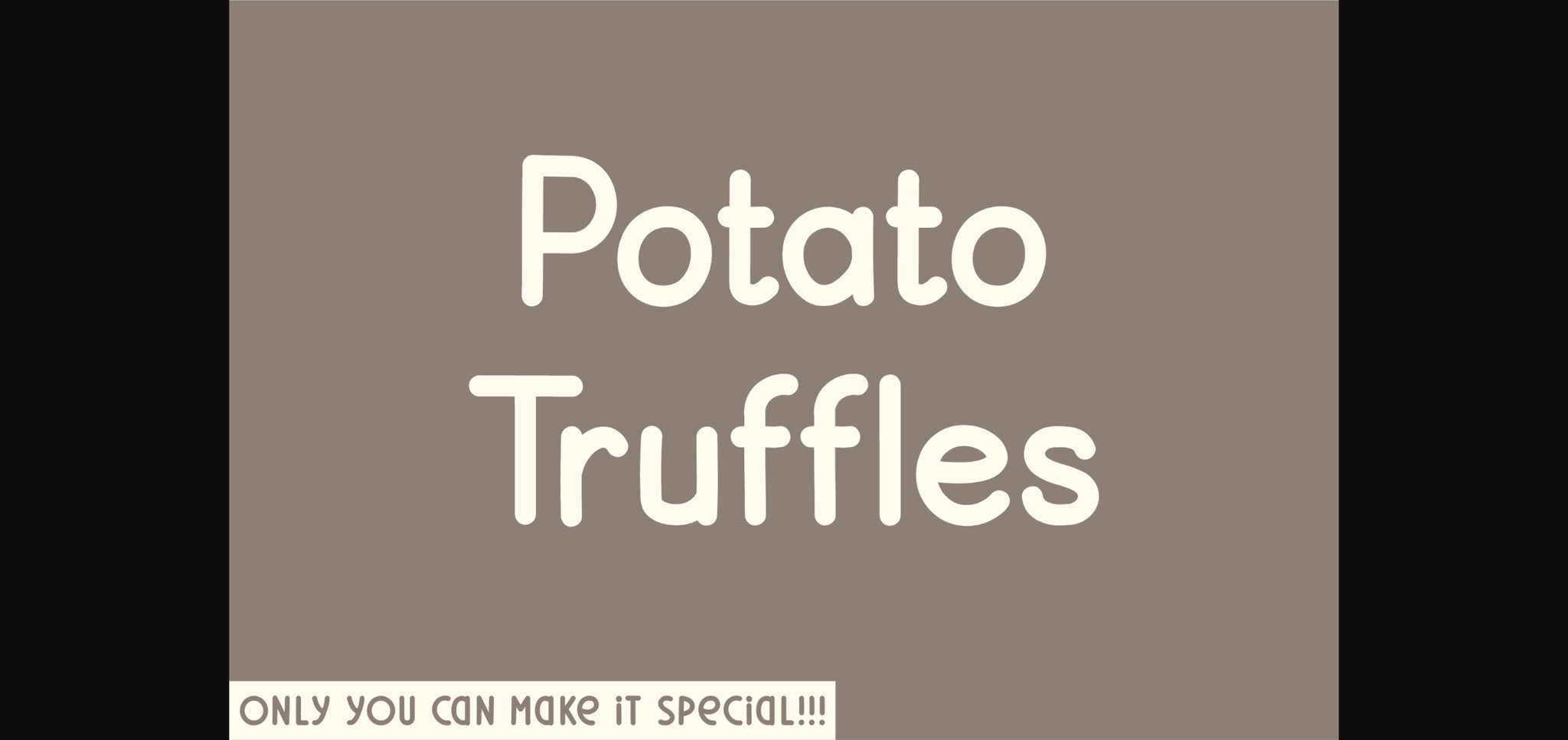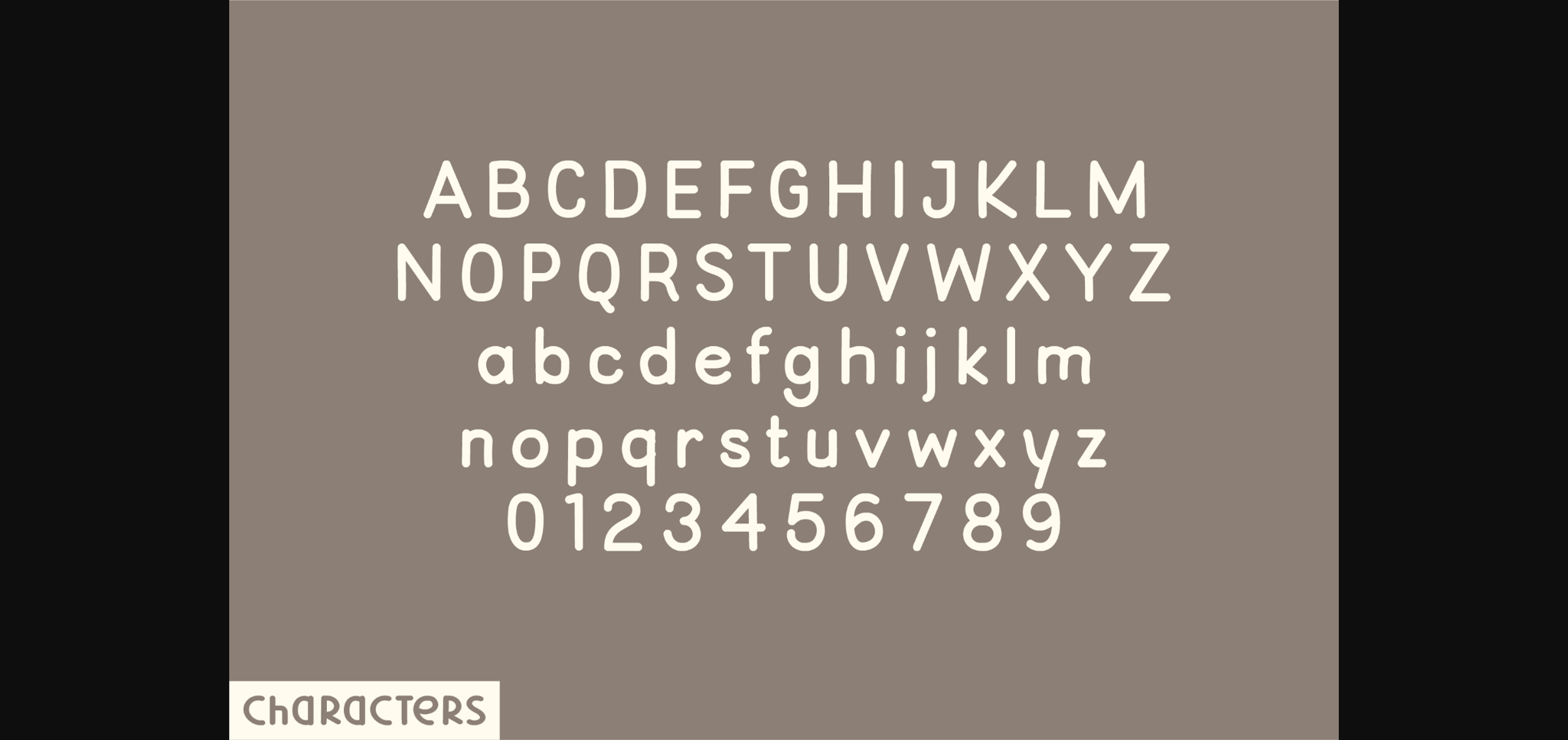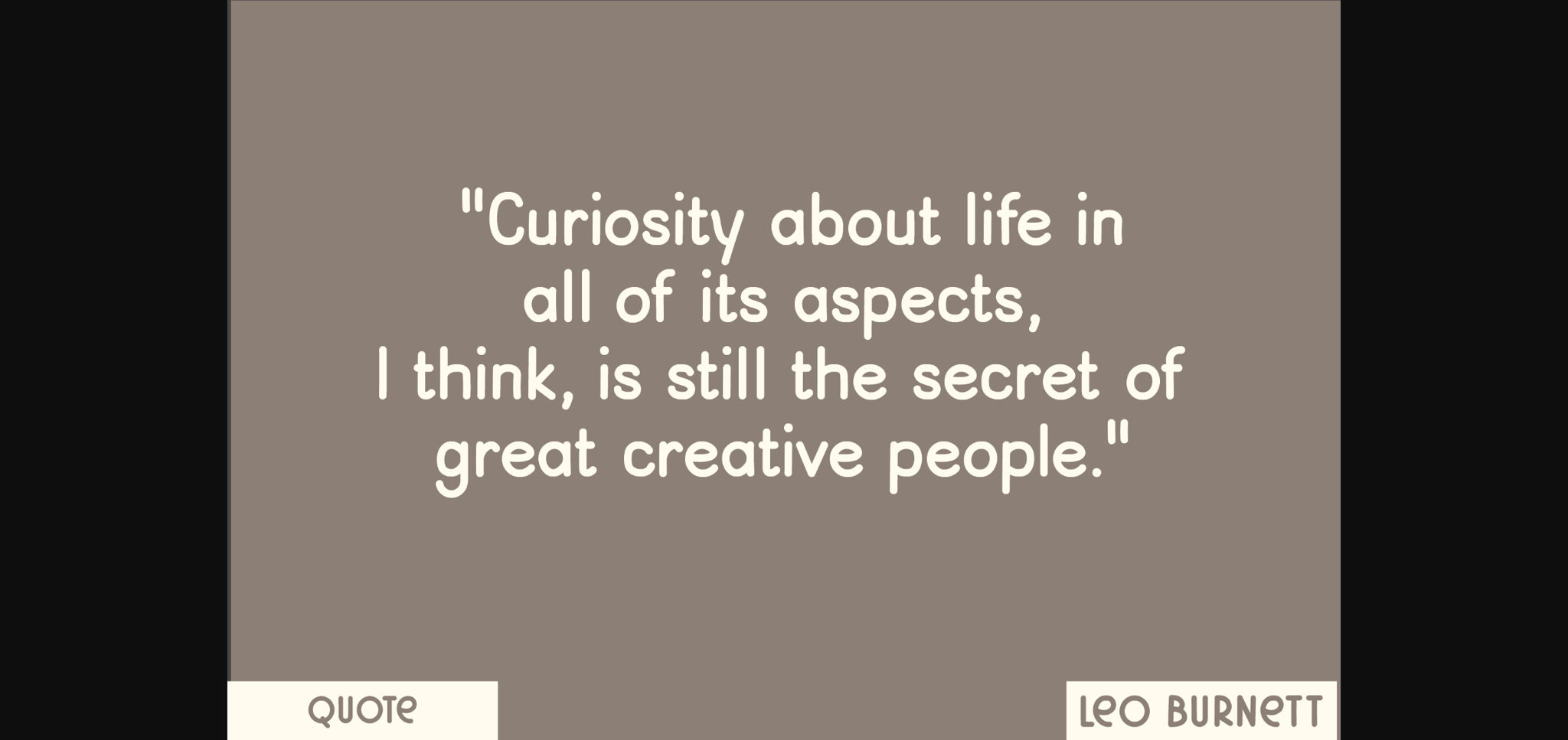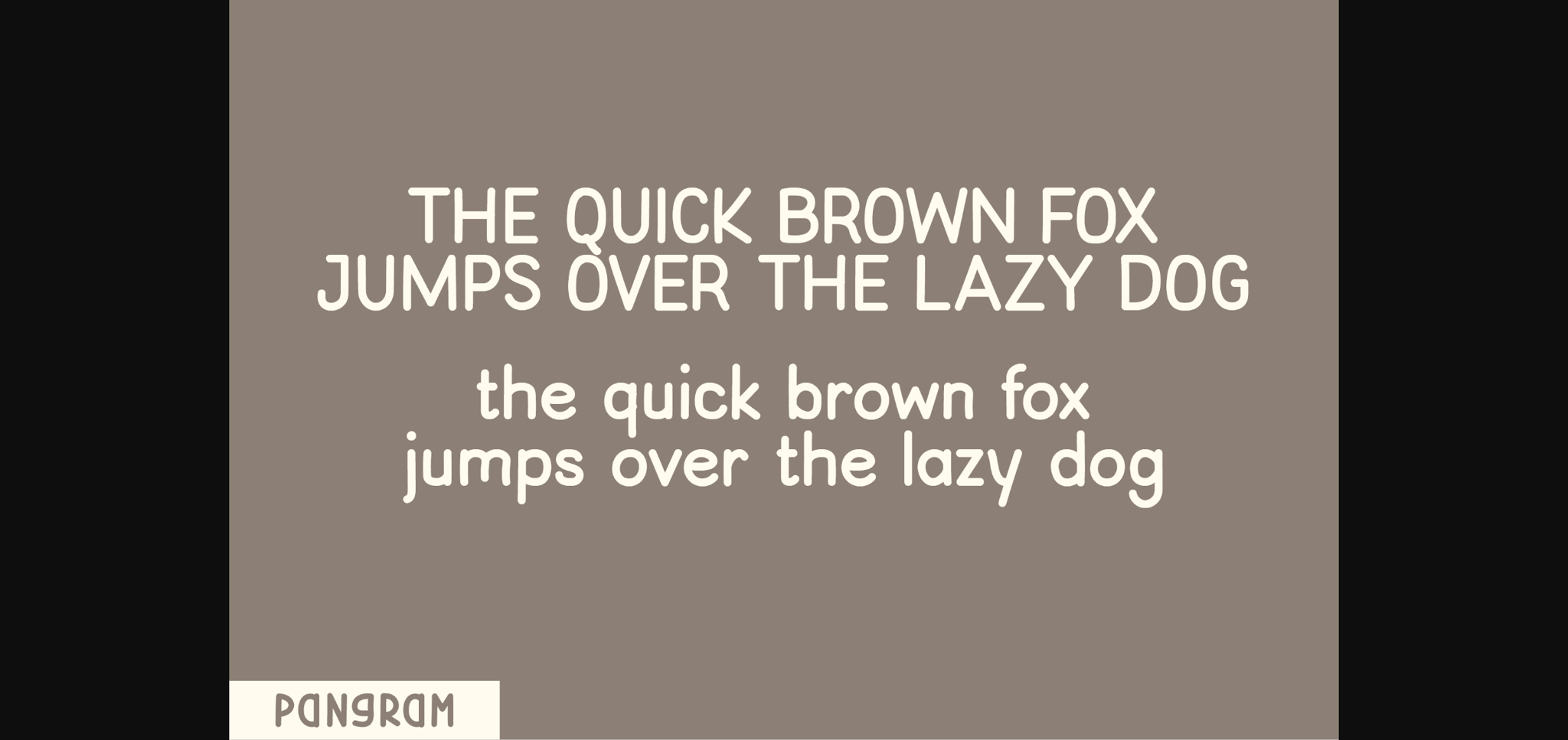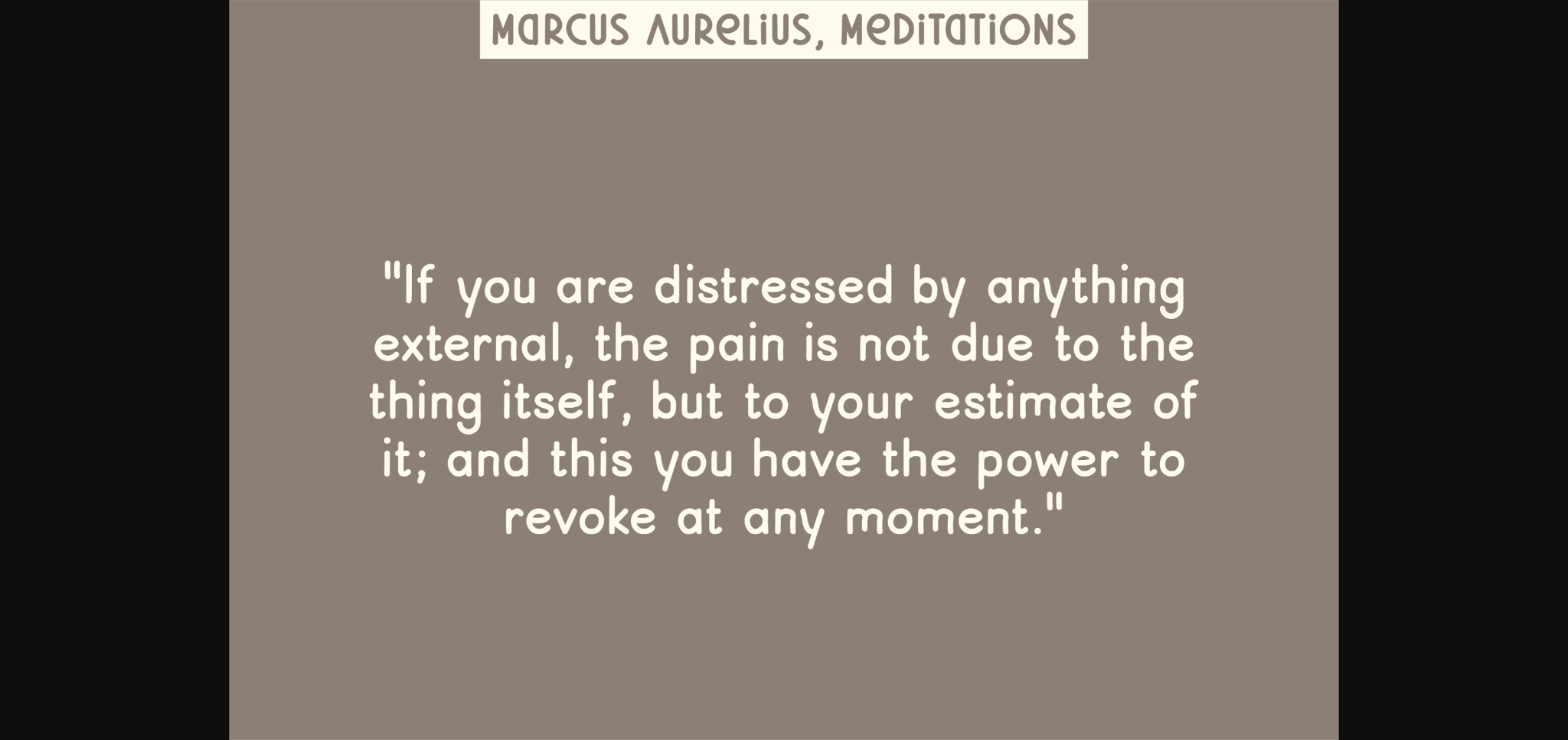
Potato Truffles Font
About Potato Truffles Font
Potato Truffles is a natural sans serif font created without changing a single node in each character’s indentation – this makes this font very interesting and unique. Perfect for quotes, notes, tees, and any product design.